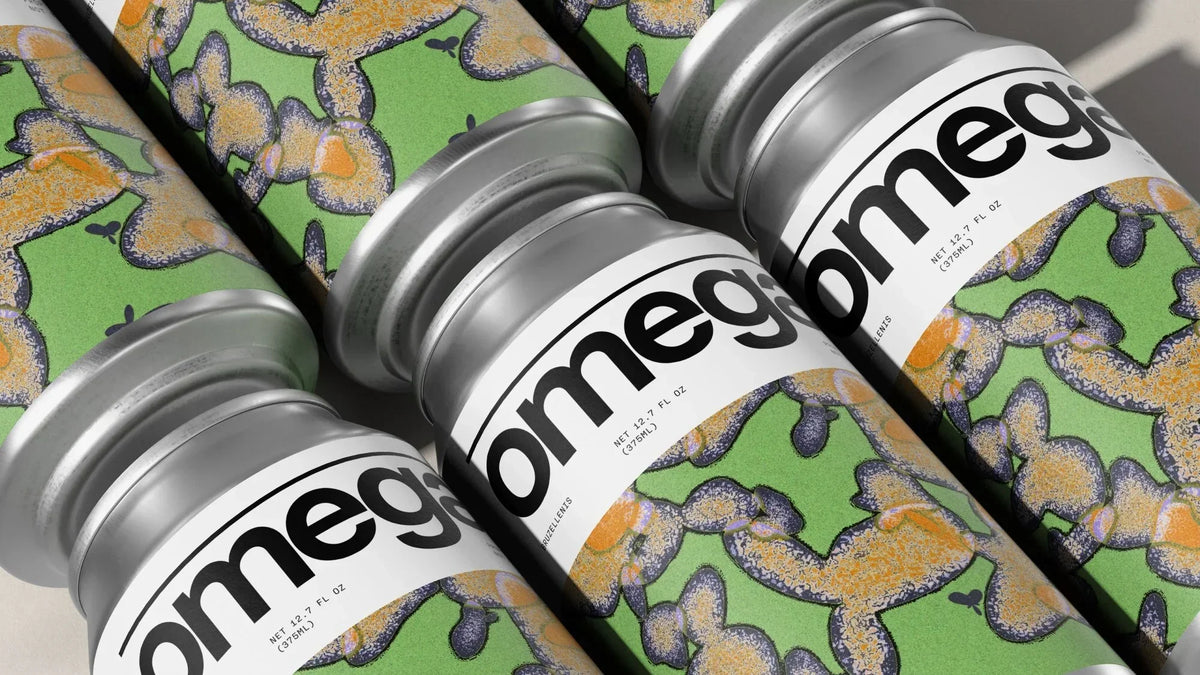
Omega is a Chicago-based brewing technology company that uses brewing science to get more out of yeast.
“There are hundreds of beautiful strains available, and the overwhelming majority (~95%) of the world’s beer is made with a handful of them,” explains Brand & Marketing Lead Bill McFarland. “The catalogue had grown past the point where our identity could carry it. We hit the ceiling and our brand began to get confusing as we rolled out new products. With roughly 100 strains, multiple product tiers and global ambitions spanning liquid and dry yeast, nutrients and lab services, the brand was in need of a scalable, versatile system that could give clear direction.”
Melbourne-based design consultancy Love + Money reorganised that product catalogue and brand architecture, building the new identity around the science of yeast fermentation, so every strain has its own visual expression, determined by its characteristics. Omega also needed it to work across print, digital and packaging, and “to inspire its team.”
“It’s just that they ask the best questions,” McFarland tells us of the choice to partner with Love + Money. “They were just so curious to understand if something was working or not, wanting to understand how the business worked, the context and the history behind every detail. Love + Money’s process was a masterclass of vulnerability and distillation,” he adds. “That maximal curiosity is what led us to unearth a brand strategy that was both locked in with the business side of things but, even more importantly, an identity that is the connective tissue and engine behind Omega.”
Love + Money set the project’s strategic frame with three design principles – Catalytic, Cultured and Calibrated – and the proposition ‘Omega brings the culture forward.’ “The system they created brings clarity to the taxonomy while letting each strain breathe,” McFarland notes. This feeds directly into the illustration system used to distinguish strains. Omega’s yeast strains sit in four categories – Lagers, Bretts, Ales and Bacteria – resulting in an illustration’s shape and base colour for each. Attenuation then distorts the shape, and alcohol tolerance sets the size variation between shapes. Base colours stay within their category, while the wider palette shifts from one strain to the next.
The base of each illustration was created in Cavalry, whose procedural nature let the studio set and change values. “There were so many more values within the different strains, but we needed to find the right levers so that it could work simply while still showing real variation between strains,” explains Love + Money’s Rob Farmer. “The system needed to be rigid enough that it could be applied to a long list of strains but have enough flexibility to show variation.” He adds that “it was quickly evident how crucial labelling would be, and that the illustrations alone couldn’t be the only way we differentiate products.”
The reference for the illustrations came from visual arts, while the system around them was inspired by old modernist pharmaceutical brands. The wordmark sets omega in lowercase with a horizontal line above the letters, and a short version of it, an ‘o’ with a line above it, appears as a secondary mark. The line is used as a recurring graphic element across the identity, dividing, framing and organising content from packaging to print, referencing the visual language of laboratory equipment and scientific tables. The system is set up to give the illustrations their own space. “Without a clean system, the brand risked being too visually overwhelming,” Farmer notes.
The typography pairs Pangram Pangram’s gothic sans serif Mori with the monospaced Fraktion Mono. “They both feel very clean and clinical,” Farmer details. “Like the white panels, they were part of that system that contrasted really well with the loud and colourful illustrations. Given Omega’s scientific and lab-based approach, we wanted the system to have a pharmaceutical or scientific feel.” Love + Money designed the site around dynamic filtering, so a brewer can narrow the catalogue by a strain’s behaviour instead of its name alone. “We wanted to empower the brewer to be their own guide,” McFarland concludes.